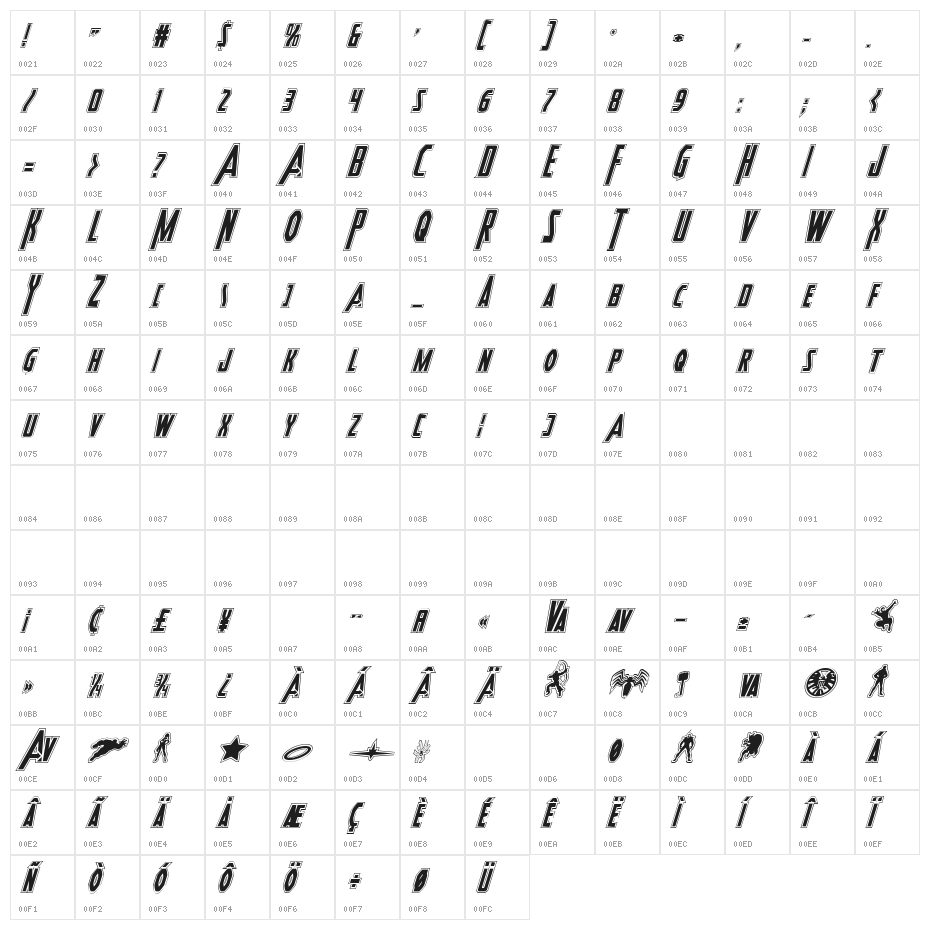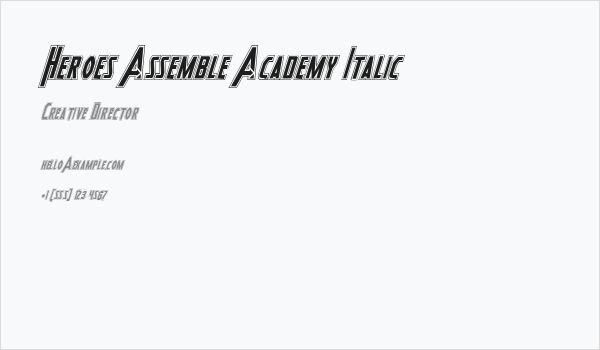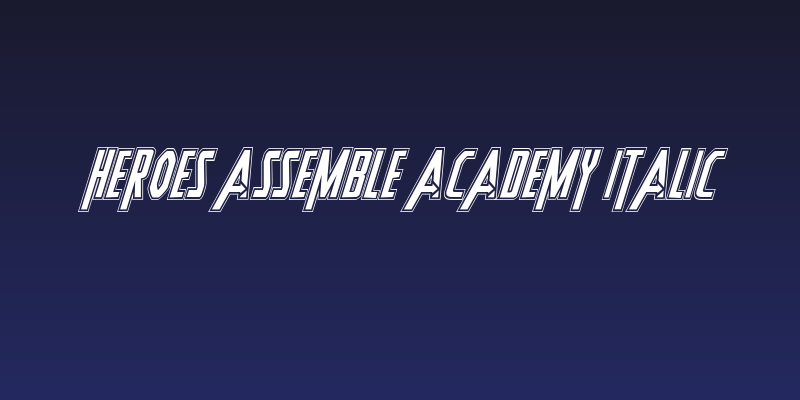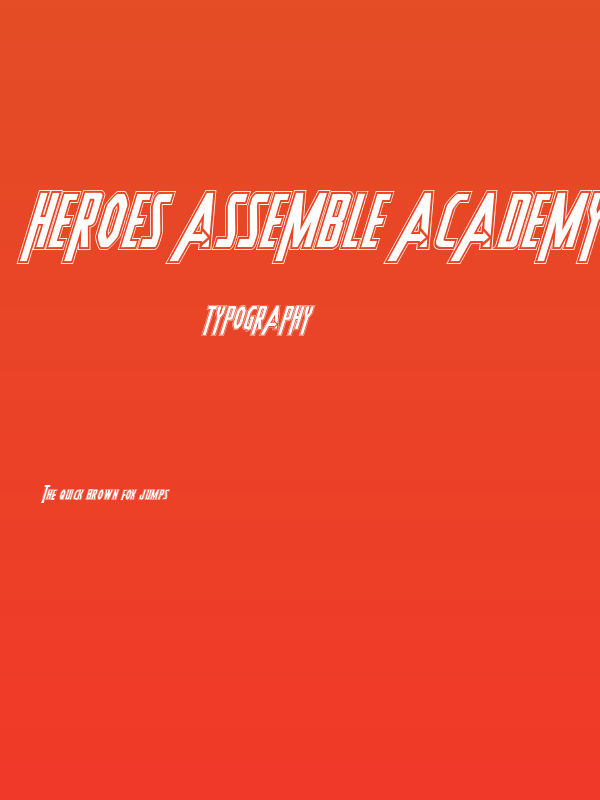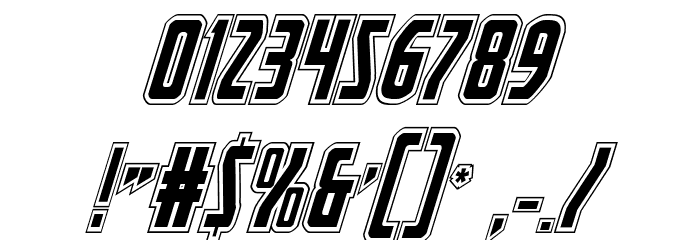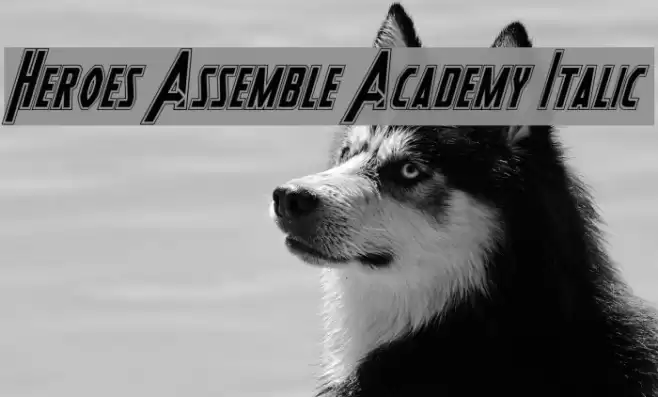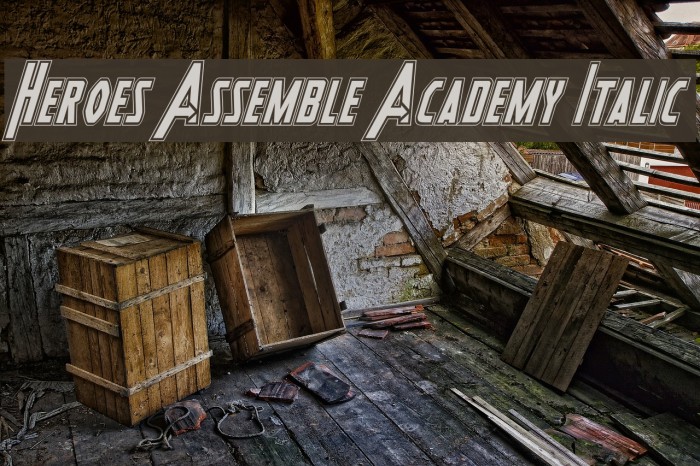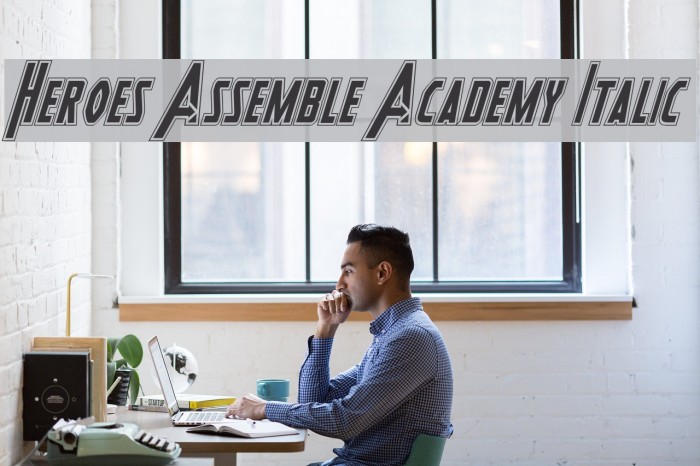
Heroes Assemble Academy Italic Font
Heroes Assemble Academy Italic Description
This font features a bold and dynamic style, characterized by its strong geometric shapes and italicized stance. The letters are outlined, creating a striking contrast between the thick, solid interior and the thin, sharp edges. This design gives the font a sense of movement and energy, making it ideal for attention-grabbing headlines. The uppercase letters are particularly prominent, with a slight slant that enhances the italic effect. The numbers and special characters maintain the same bold and energetic style, ensuring consistency across all elements. The overall appearance is modern and impactful, suitable for projects that require a bold statement.
| Proposed Projects | Ideal for superhero-themed designs, comic book covers, posters, and dynamic branding projects. |